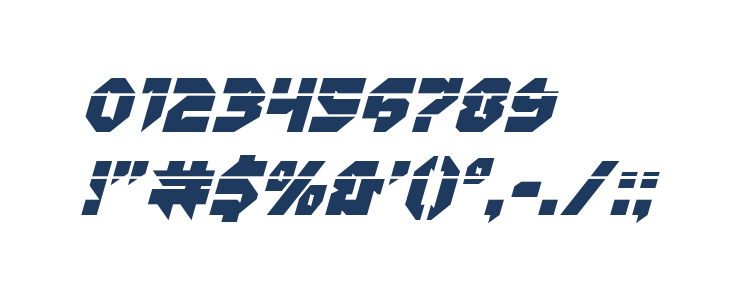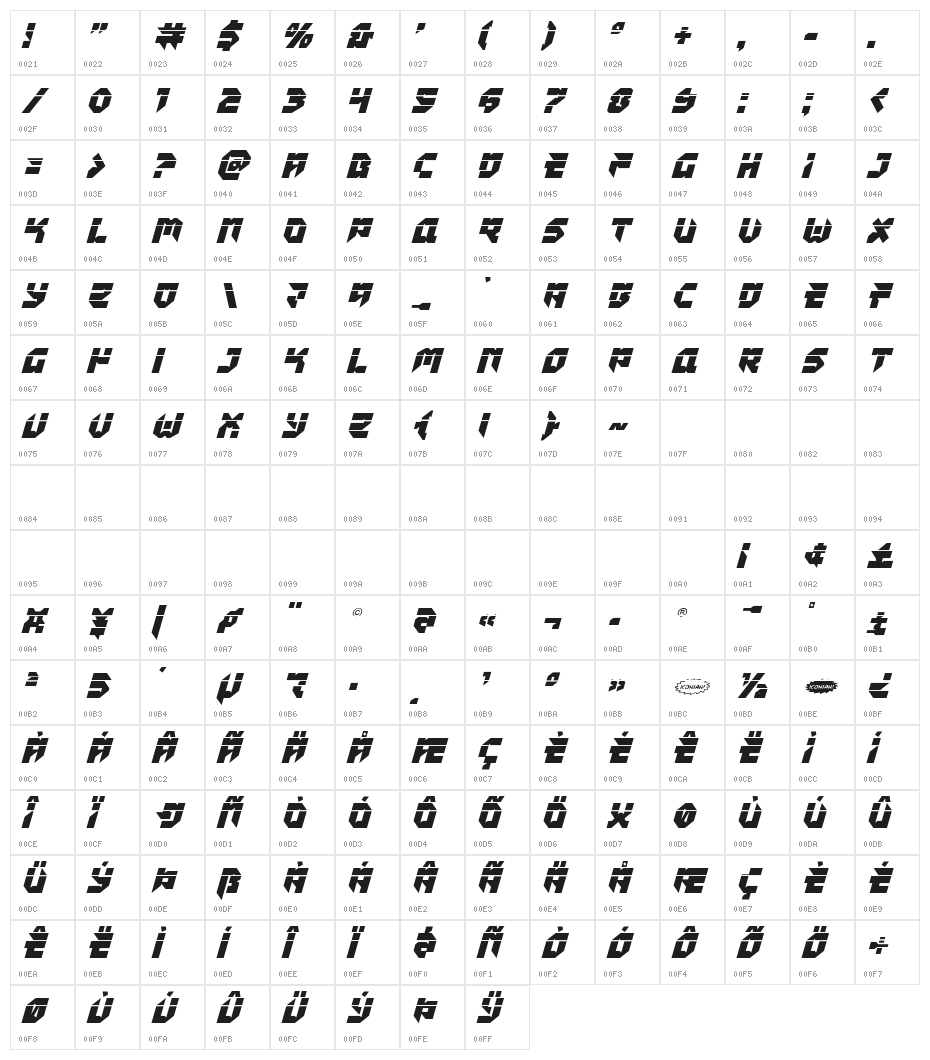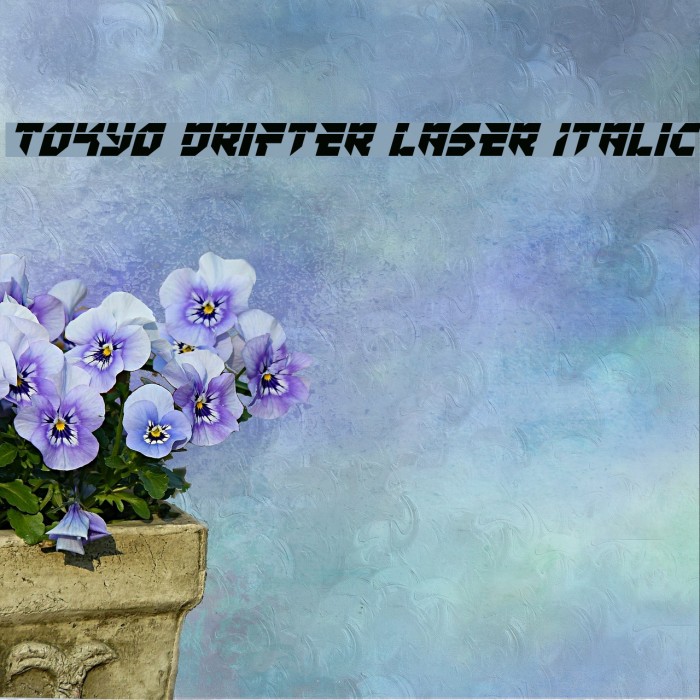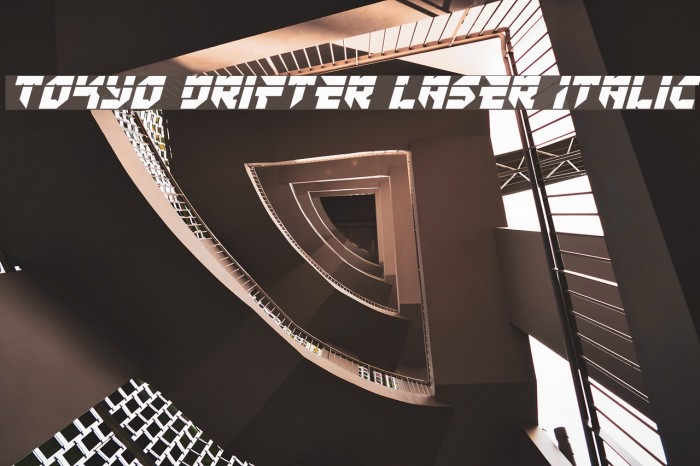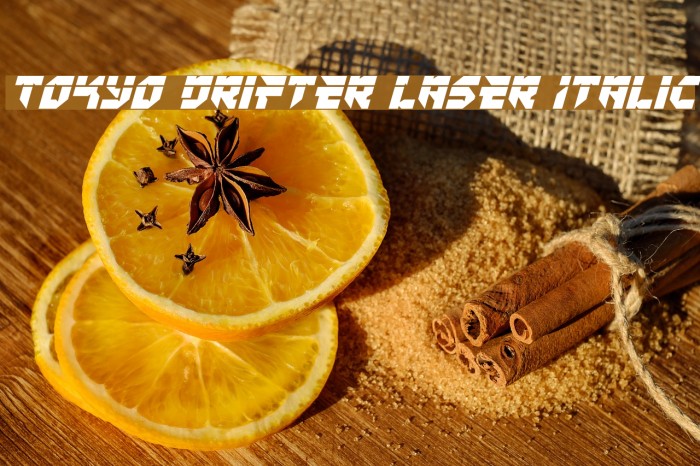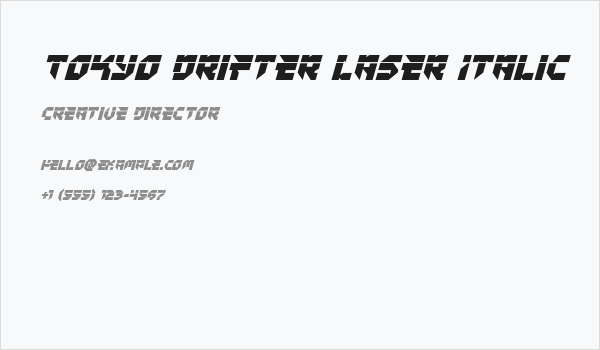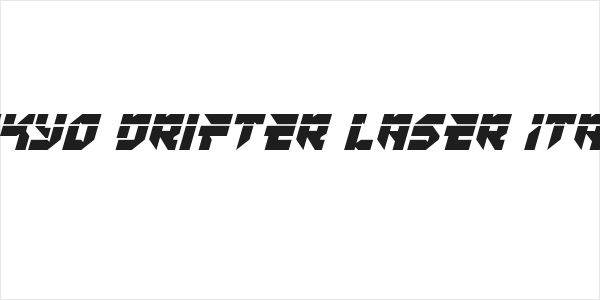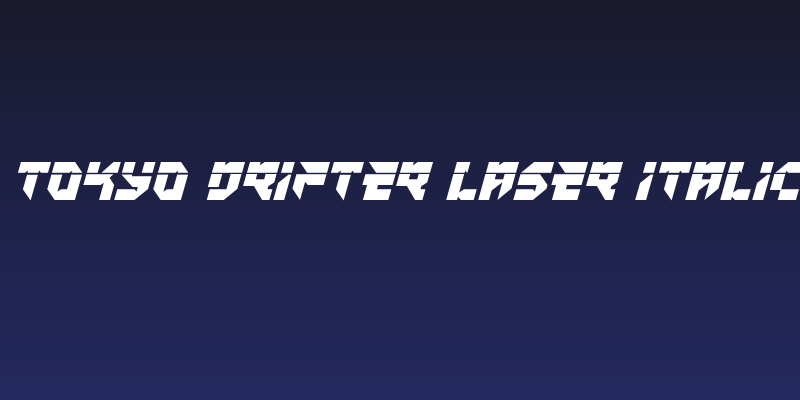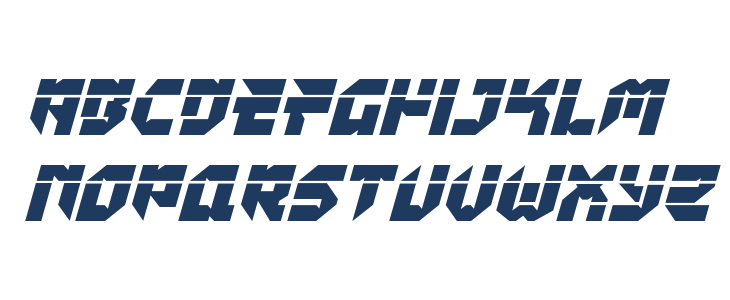
Tokyo Drifter Laser Italic Font
Tokyo Drifter Laser Italic Description
This font features a futuristic and angular design, characterized by sharp, geometric shapes and a distinct italic slant. The bold and dynamic appearance is achieved through thick strokes and high contrast, making it stand out in any setting. The characters are uniquely stylized with cut-out sections and diagonal lines, giving it a digital or sci-fi aesthetic. The uppercase and lowercase letters maintain a consistent style, while the numbers and special characters complement the overall design with similar angular features. This font is ideal for projects that require a modern and edgy look.